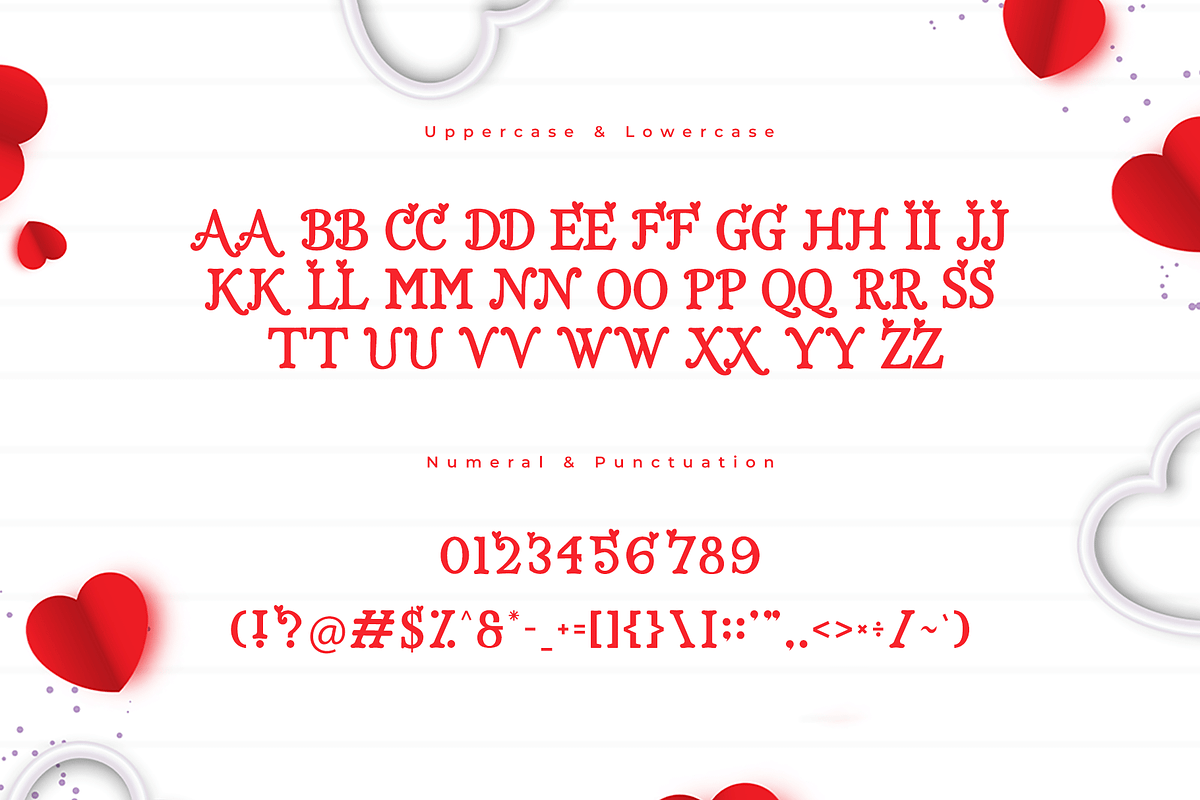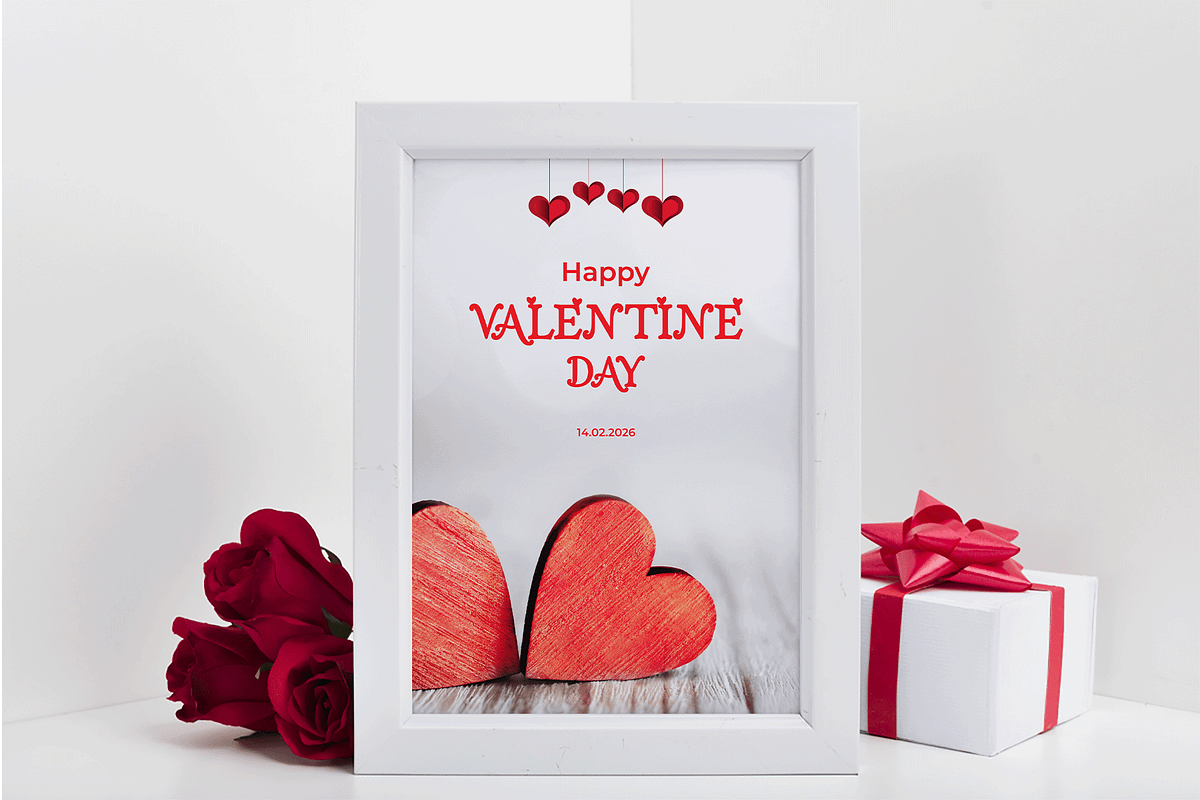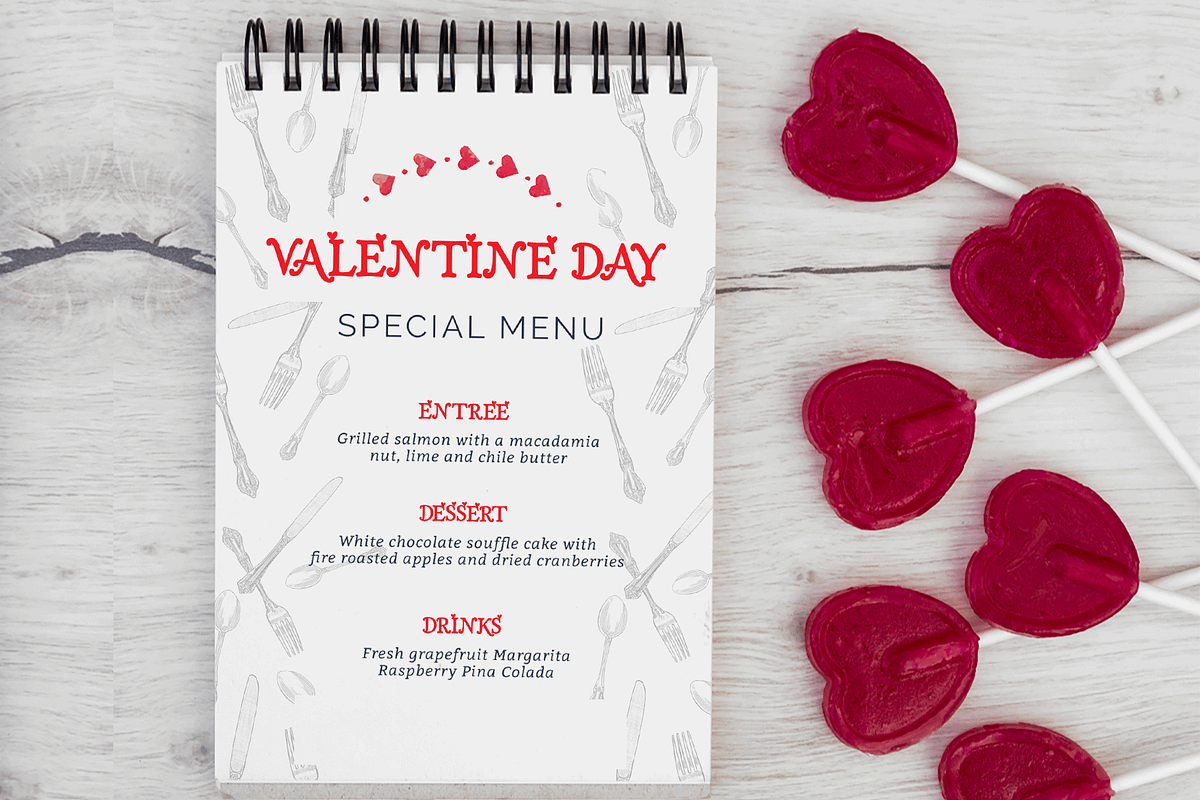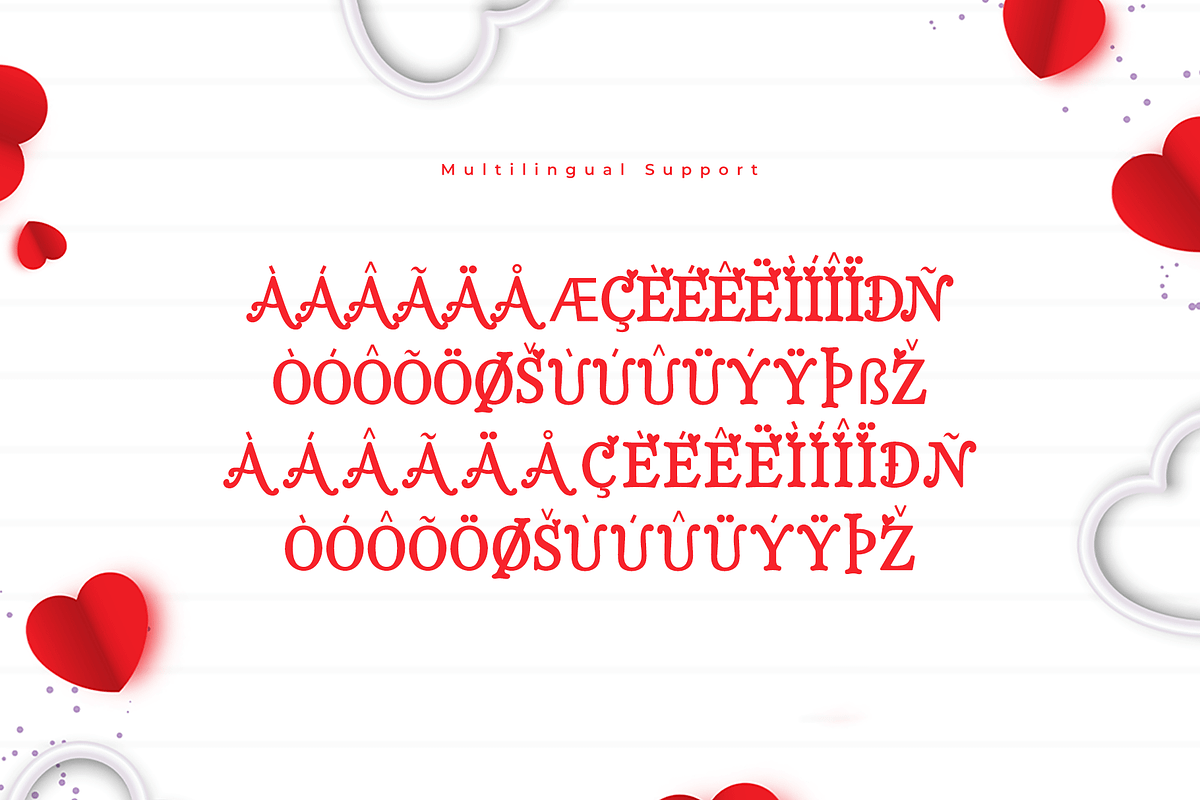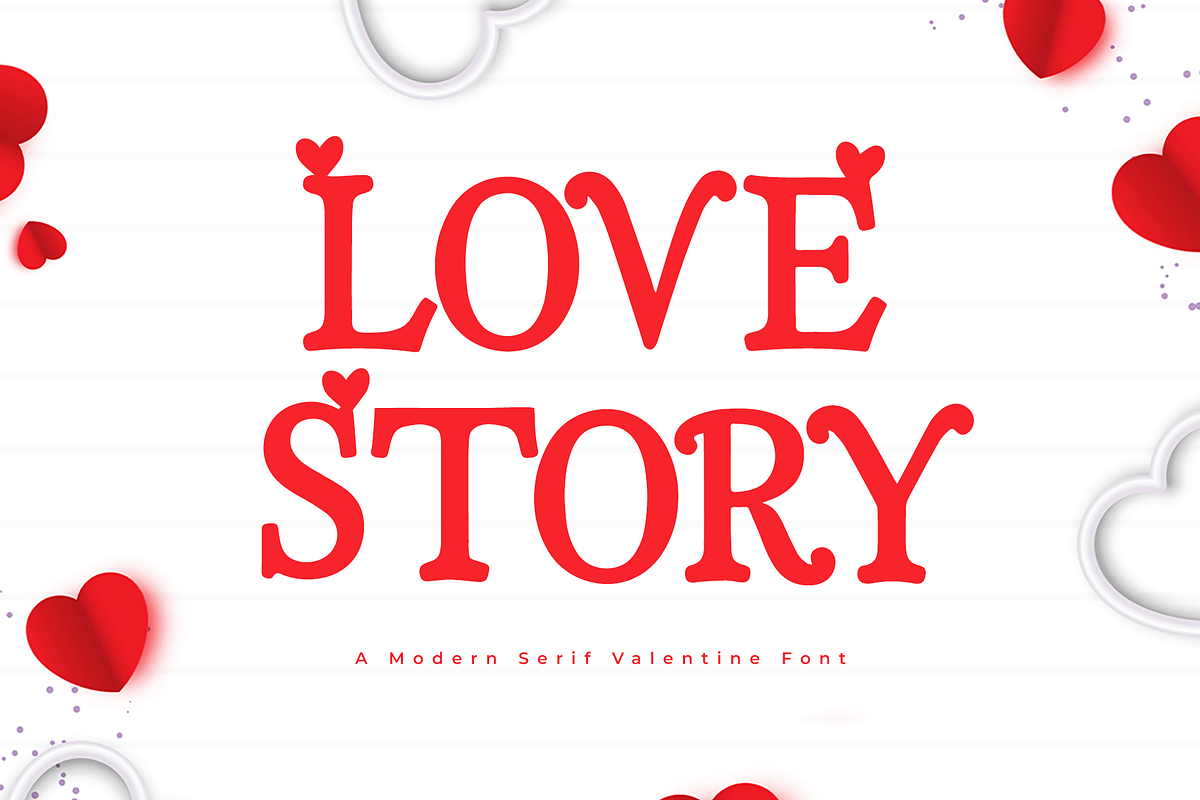
Love Story - Modern Serif Valentine
Love Story - A Modern Serif Valentine Font
Introducing Love Story, a modern serif font that captures the romance and sophistication of Valentine’s Day. With its graceful curves and refined serifs, this typeface is perfect for expressing love in style.
Whether for wedding invitations, Valentine’s cards, or romantic branding, Love Story adds a touch of elegance to your designs. Its versatility makes it ideal for digital and print projects, ensuring a timeless appeal.
Featuring a full character set, multilingual support, and unique ligatures, Love Story is the ultimate font to celebrate love in every design.